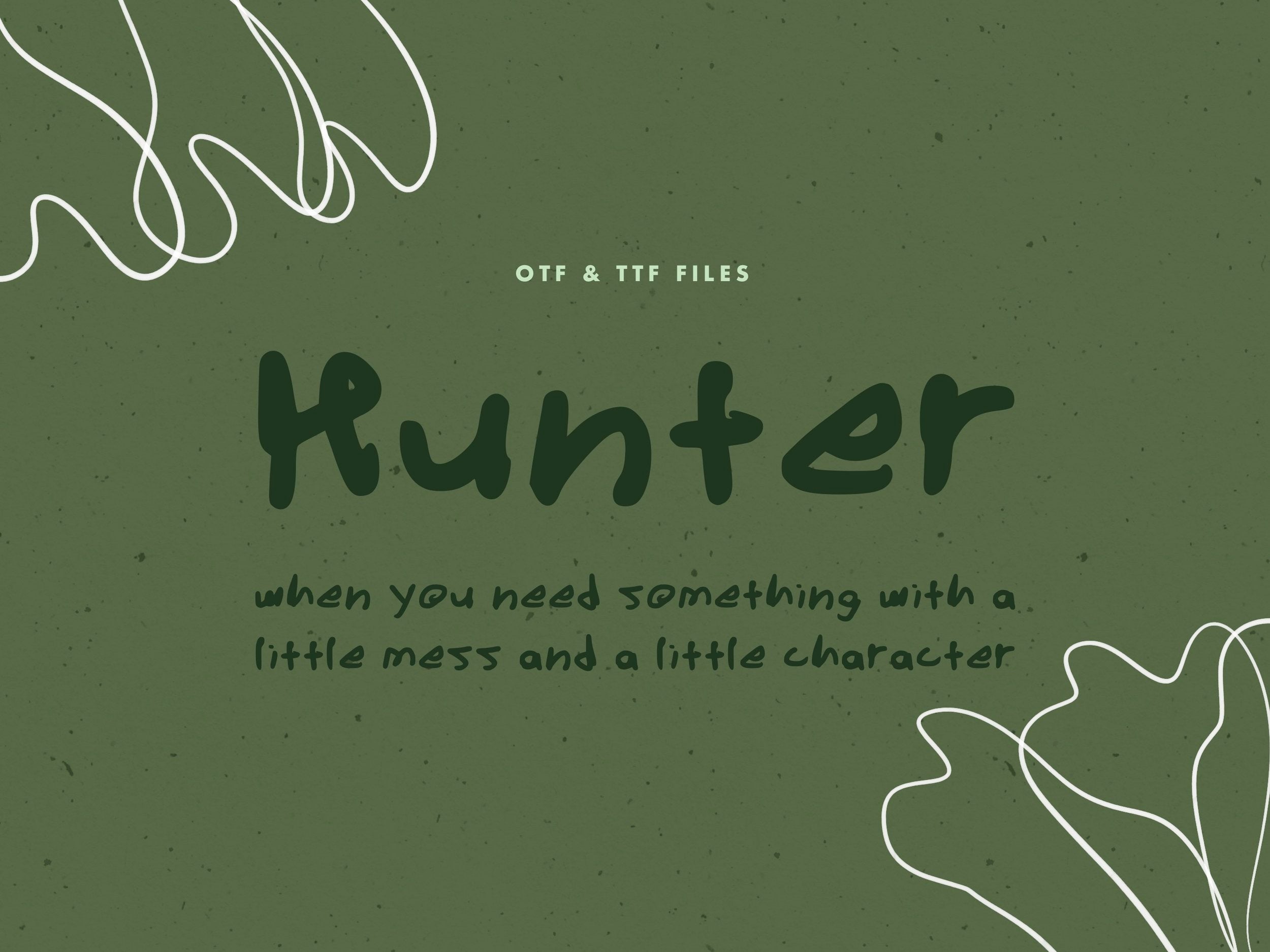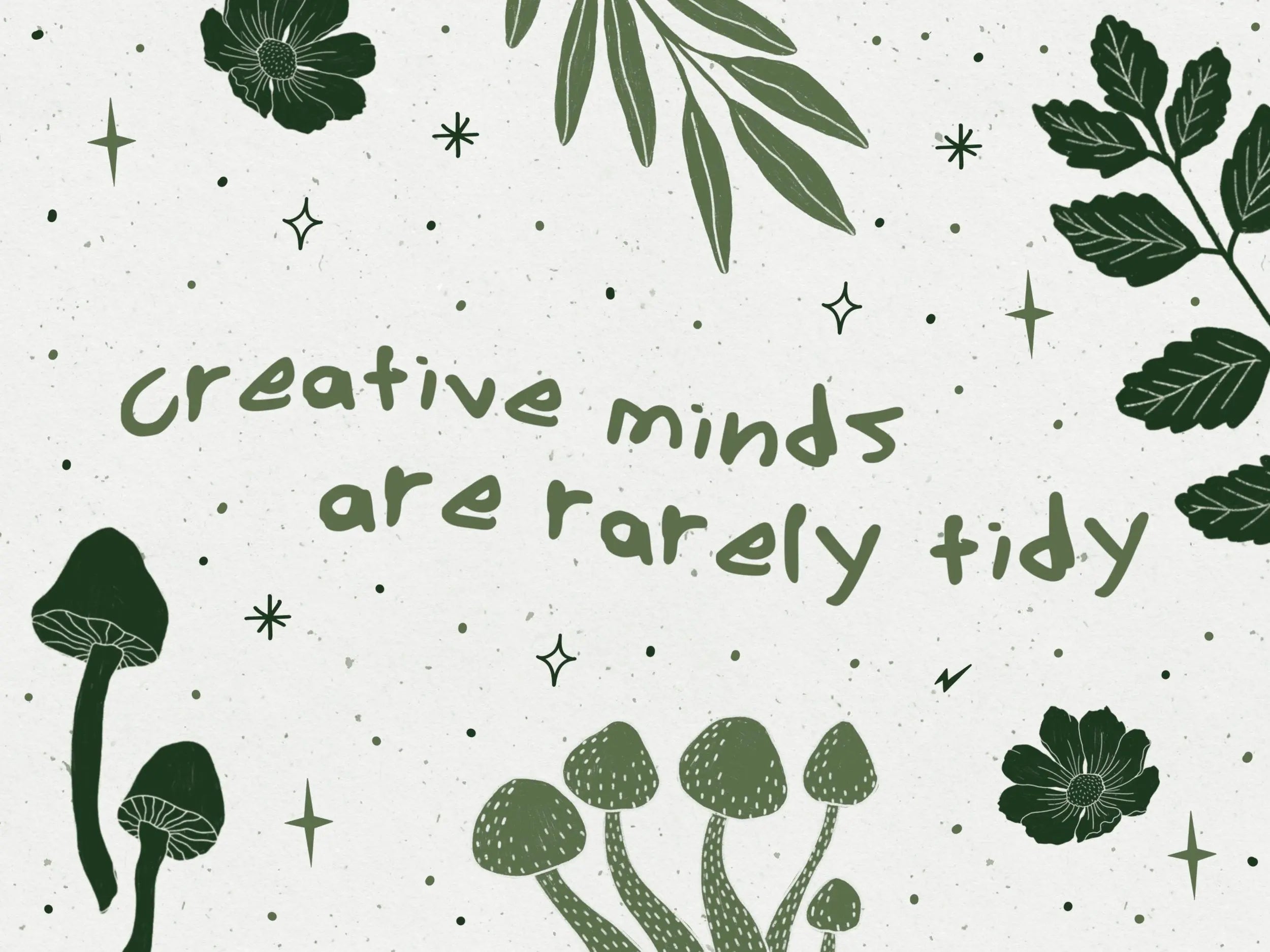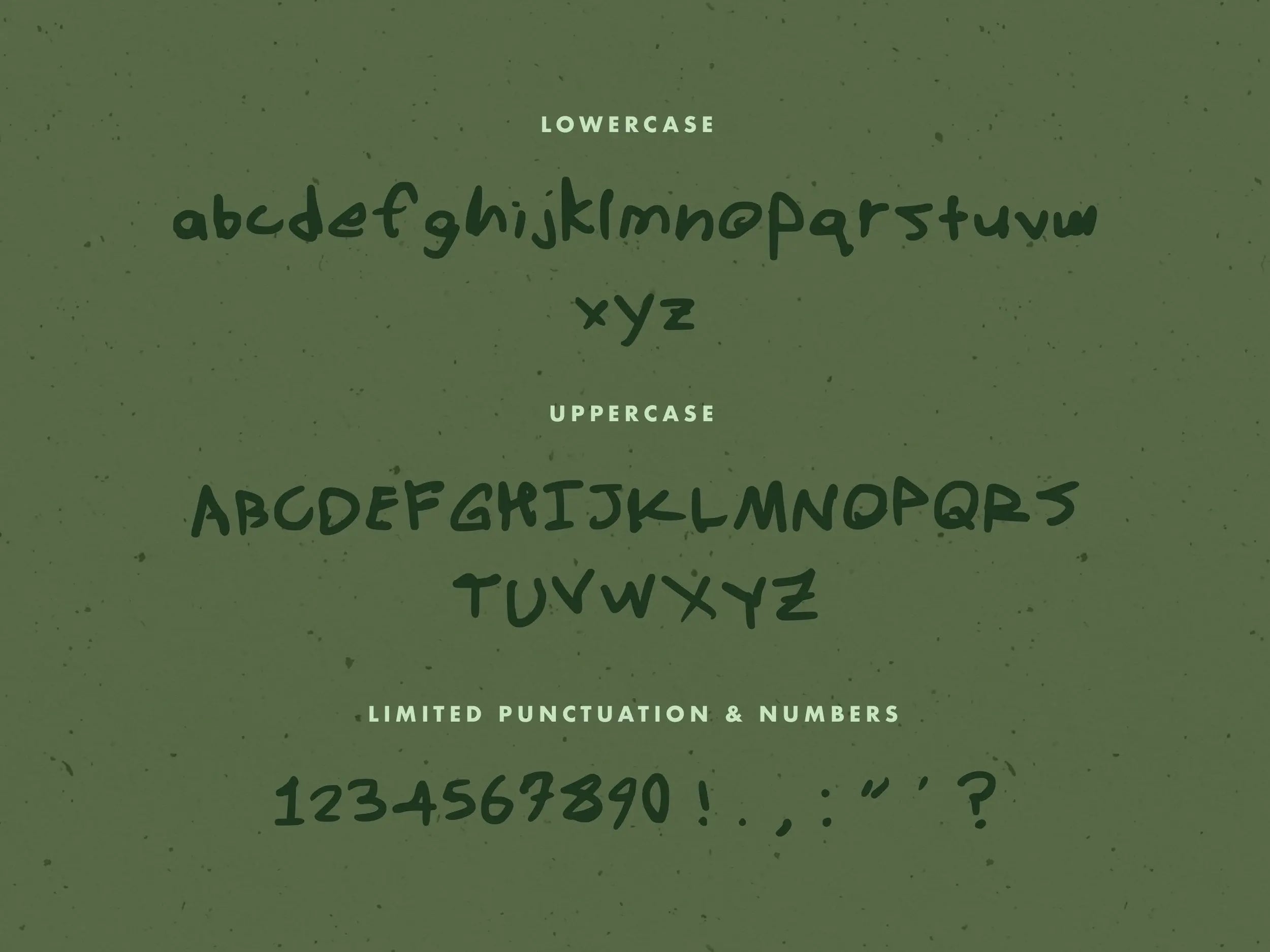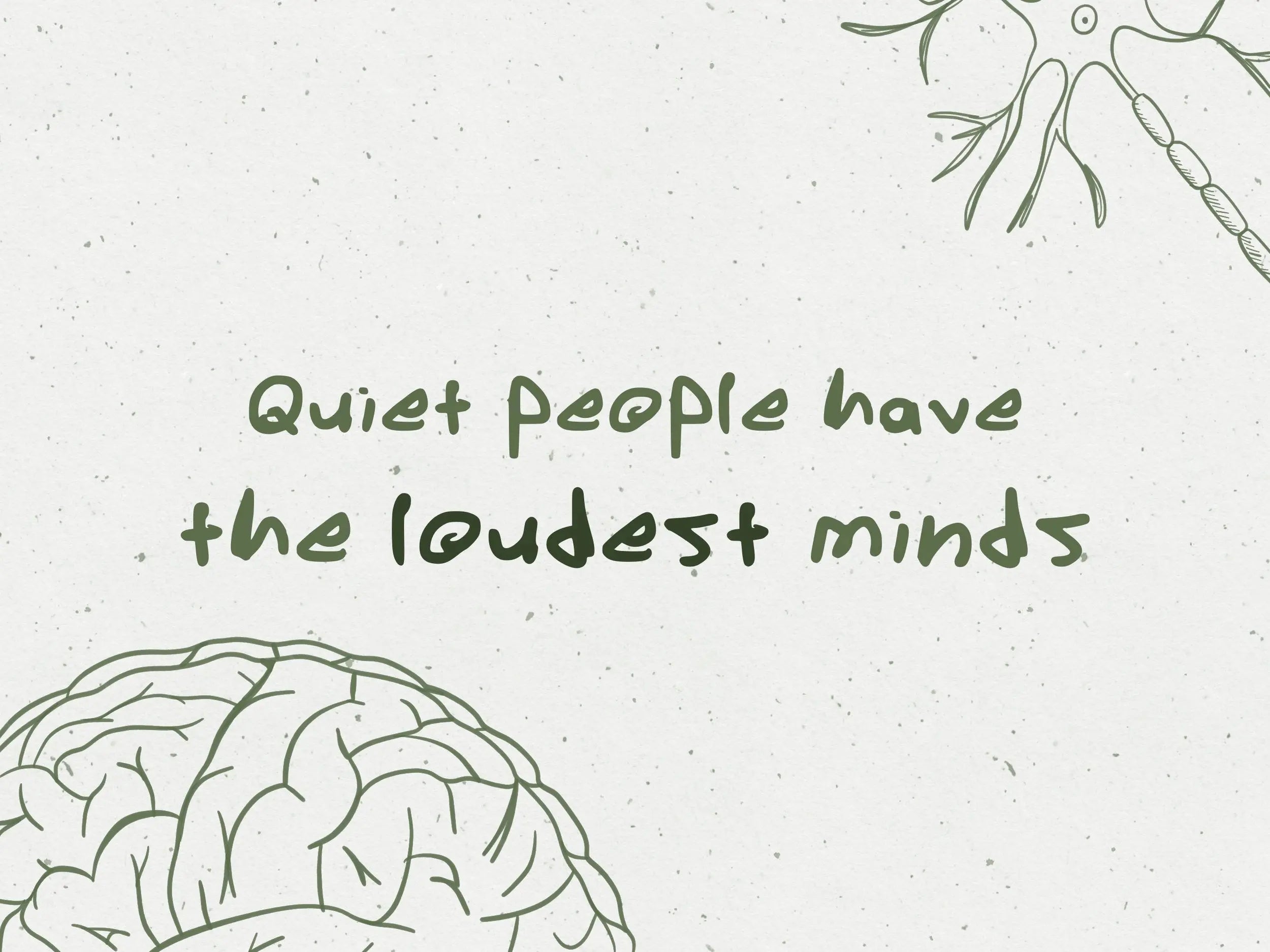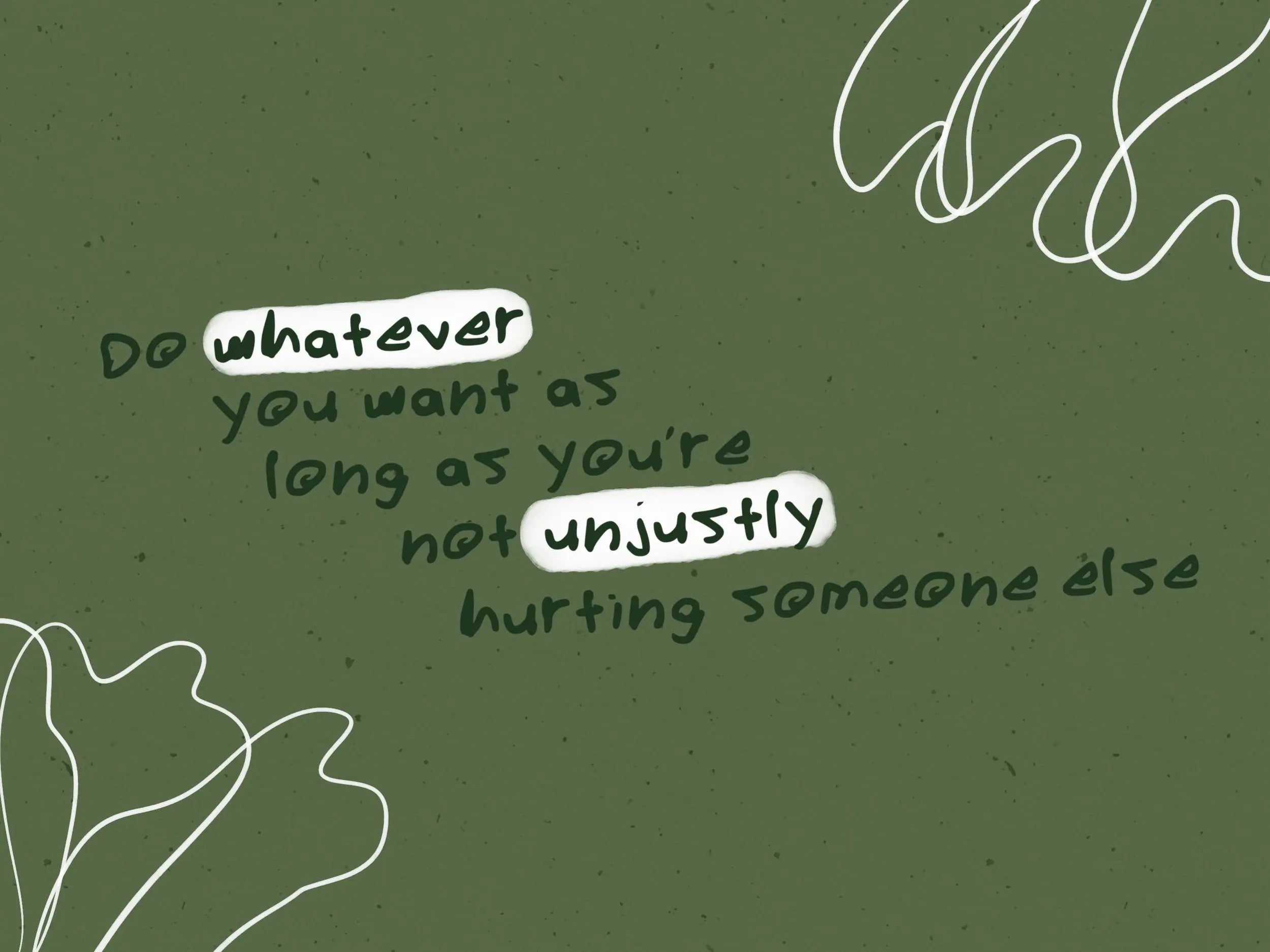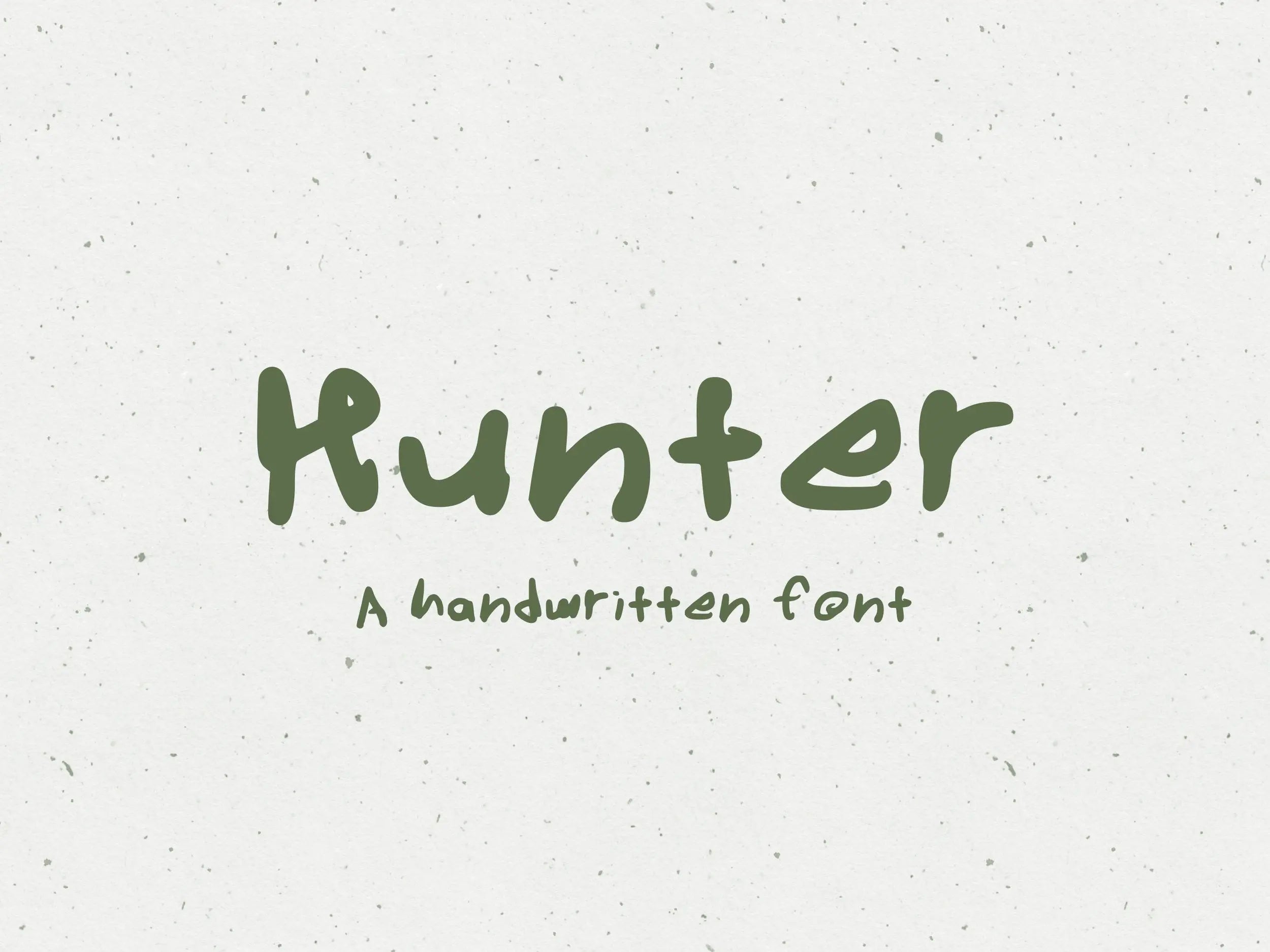
Hunter Font
A handwritten, messy font with lots of character. Great for creating shareable Instagram quote posts, invitations and stationary, and loads more.